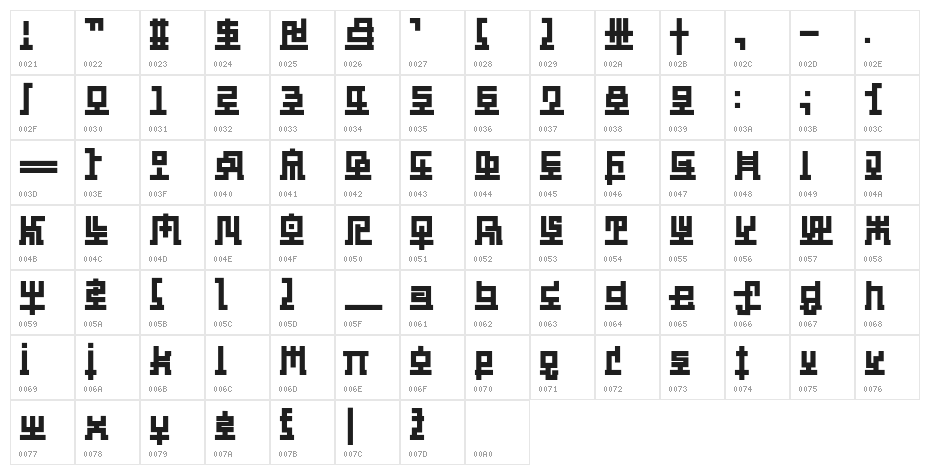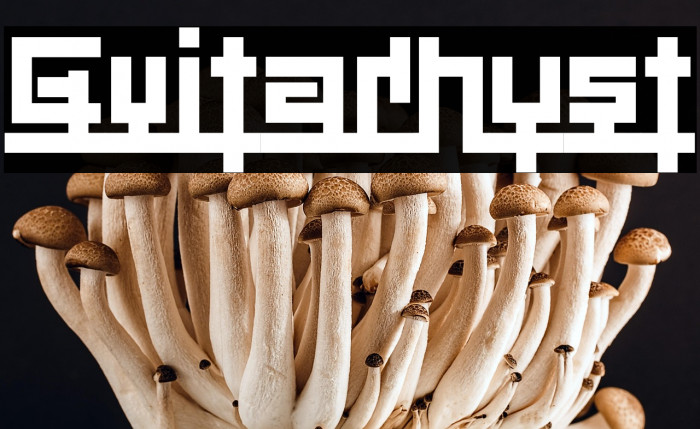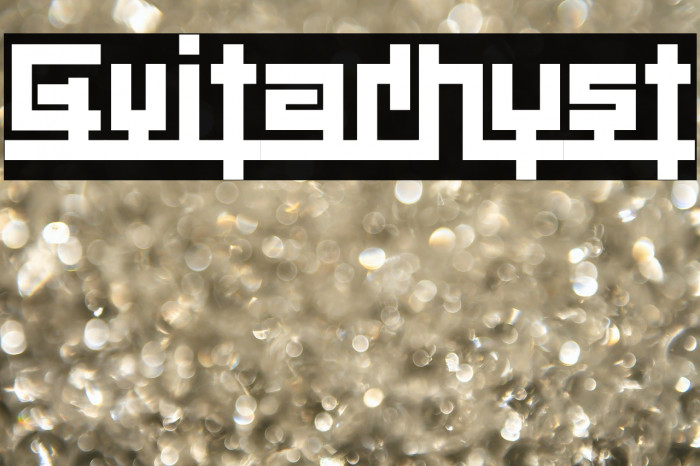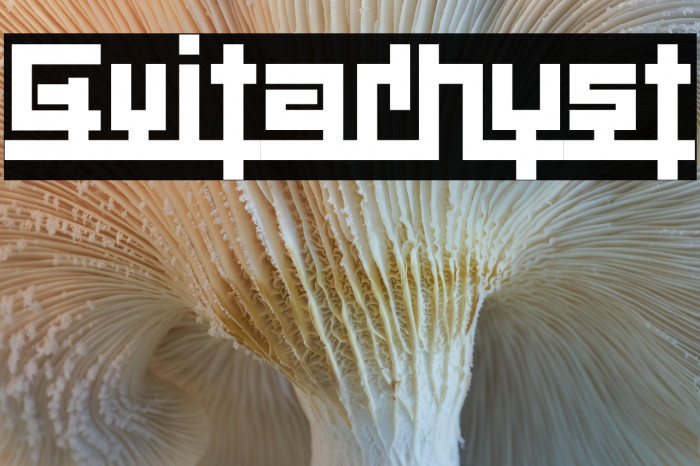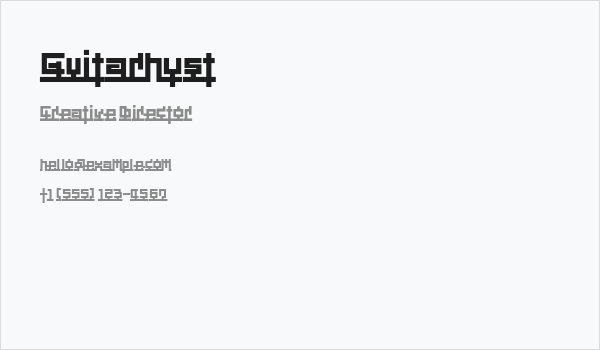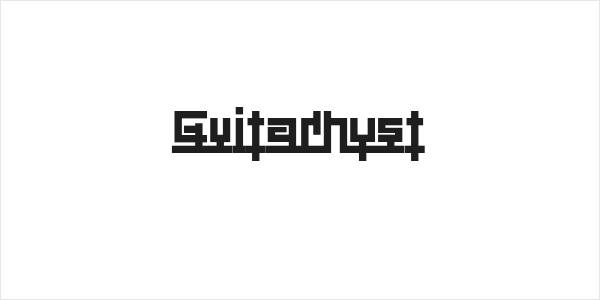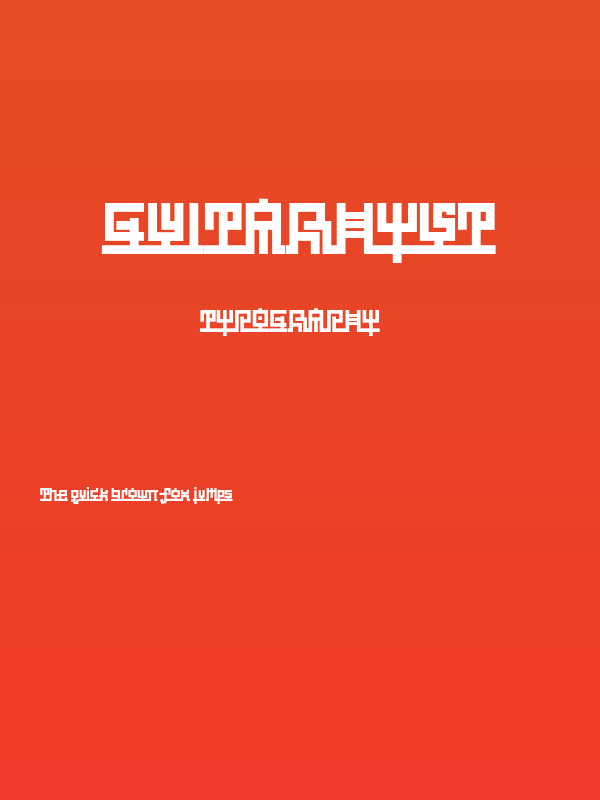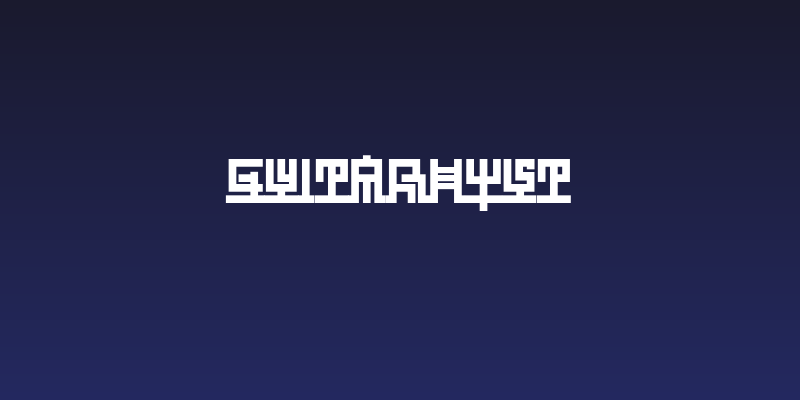
Guitarhyst Font
Guitarhyst Description
This font exhibits a bold, geometric style with a distinct digital or pixelated appearance. Each character is constructed with thick, uniform strokes, creating a blocky and angular look. The uppercase and lowercase letters maintain a consistent height, contributing to a monospaced feel. The numbers and special characters follow the same design principles, ensuring uniformity across the font. The overall aesthetic is reminiscent of early digital or arcade game typography, making it stand out with its retro, tech-inspired vibe.
Overall StyleRetro, Digital
Proposed ProjectsIdeal for retro-themed designs, video game graphics, tech-related branding, and digital art projects.